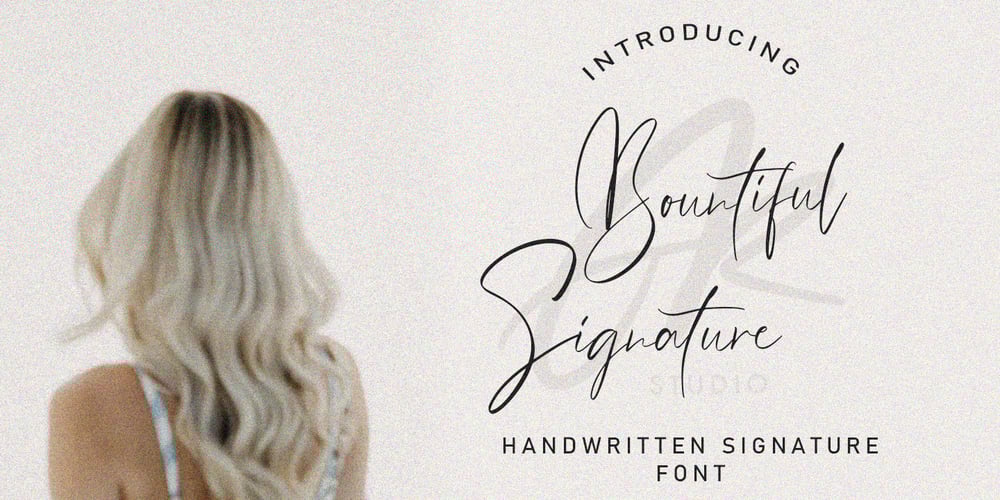
Bountiful Signature Font Family was designed by Asep Rendi and published by Arendxstudio. Bountiful Signature contains 2 styles and family package options. Bountiful Signature is a high energy signature-style script font guaranteed to make a big impression. Digitally hand-drawn, it’s super-clean smooth flow and high-intensity pen strokes make an unmistakeable impact in logo/branding projects, large header text and product packaging. Features: 1.Uppercase & Lowercase 2.Numer & Punctuation 3.Multilingual support 4.Ligatures 5.Alternates There it is! I really hope you enjoy it – comments & likes are always welcome and accepted. More importantly, don’t hesitate to send a message if you have a problem or question. Now just read this, go there and make it happen 🙂